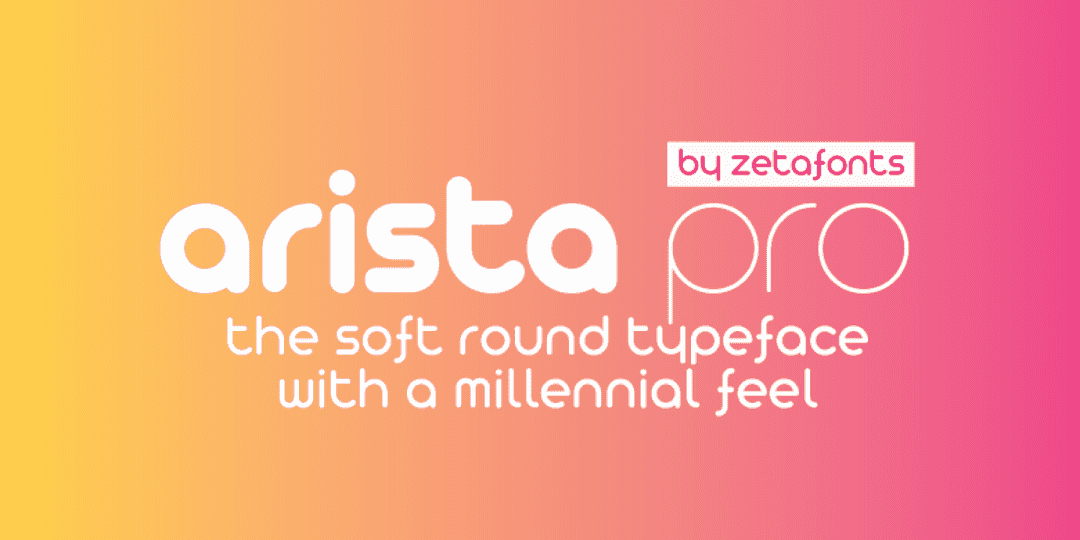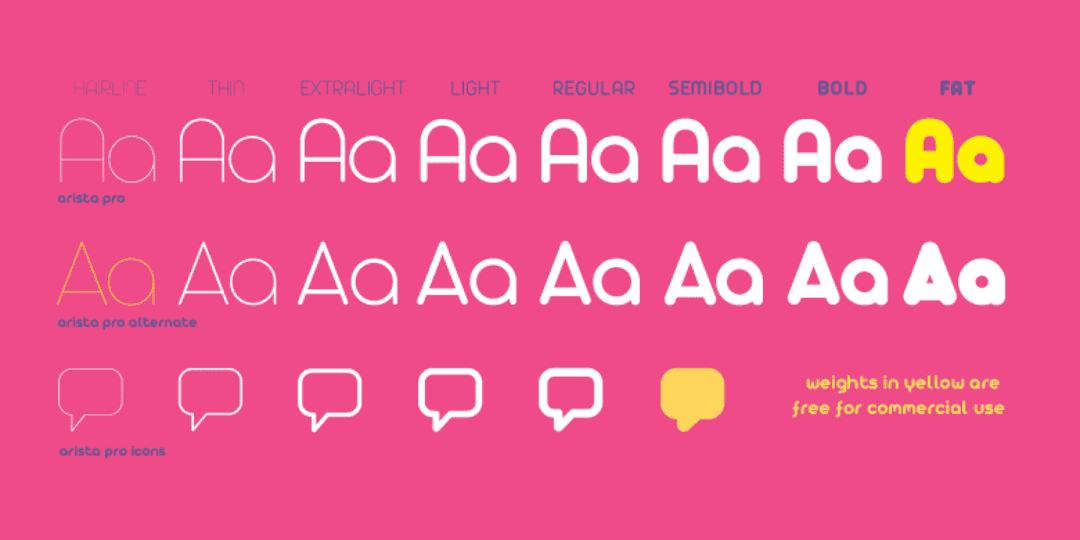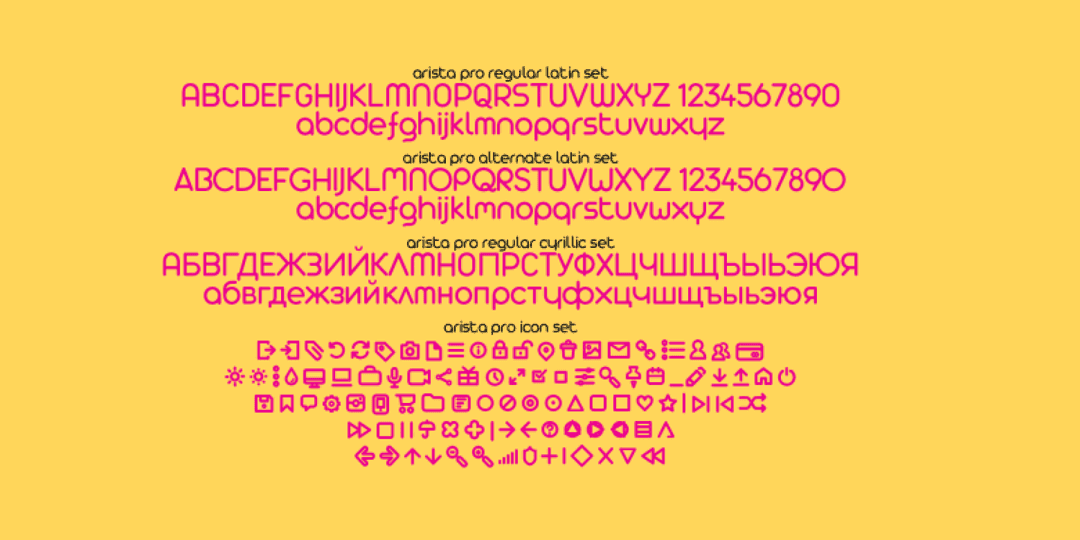
Zetafonts proudly presents Arista Pro, designed by Francesco Canovaro and first introduced by Zetafonts in 2007. Arista Pro represents an extension of Arista typeface first released under Arista Z in 2007 then later as Arista 2.0 in 2010.